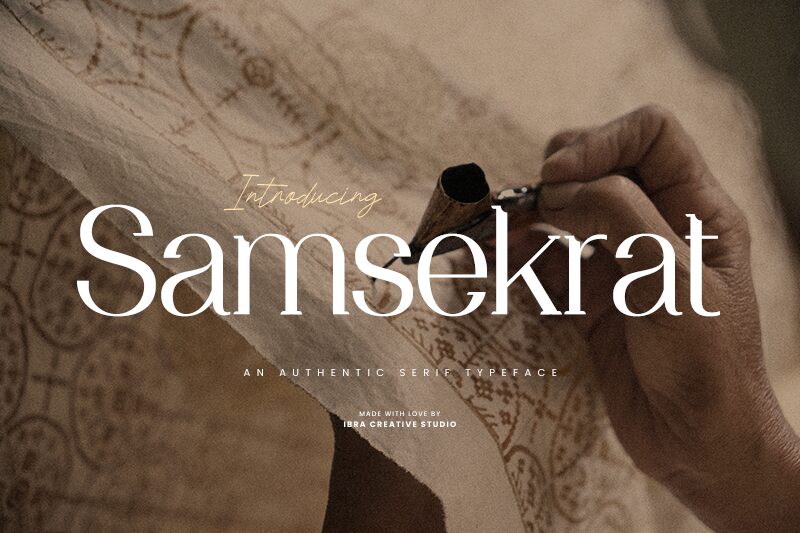
Samsekrat font, designed by Ibra Creative Studio, is a refined serif typeface that combines elegant sophistication and classic influences with a modern application. Its carefully crafted lines and understated aesthetic make it perfect for projects requiring subtle elegance.
This free serif font seamlessly integrates a distinguished touch in magazine layouts, professional presentations, and prestigious branding. It’s ideal for newspaper headlines, book covers, chic logos, certificates, packaging designs, website headers, blogs, promotional posters or in-store displays.